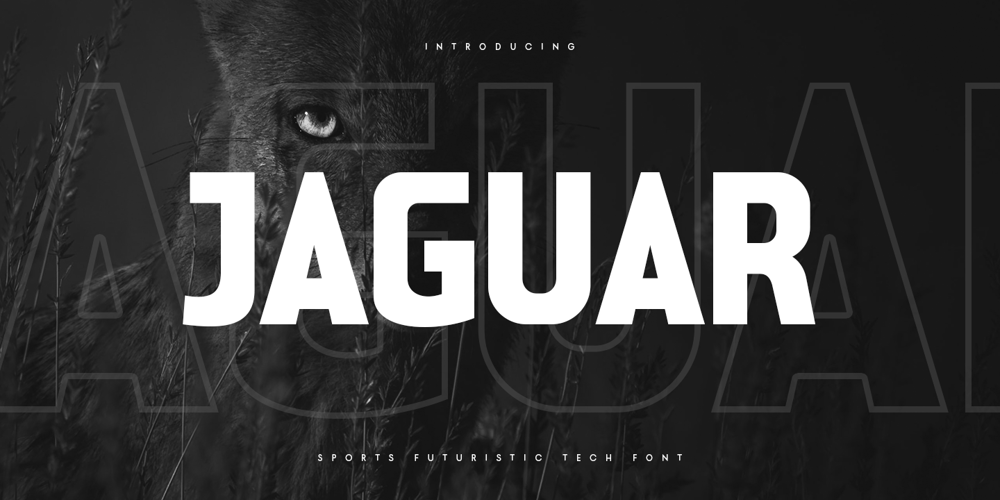
Jaguar Style Font Family was designed by Zamroni Hamzah and published by Sensatype Studio. Jaguar Style contains 2 styles and family package options. Jaguar is a Sports Futuristic Tech Font that special created for Sport and Technology design needs with Modern style. A New Sport font that we created special for Modern branding needs, with Futuristic style that ready to add value of your brand. It’s so nice to leverage designer or product owner that need solutions to make their design look more unique and sporty.Jaguar Sports Futuristic Tech Font ready with: Uppercase and Lowercase characters Numbers and Punctuations Each Style (Regular and Outline) Preview as a inspirations that you can do with Jaguar font Available for PC and Mac Wish you enjoy our font. ๐